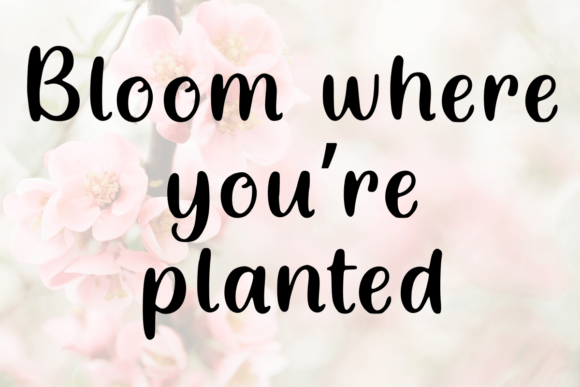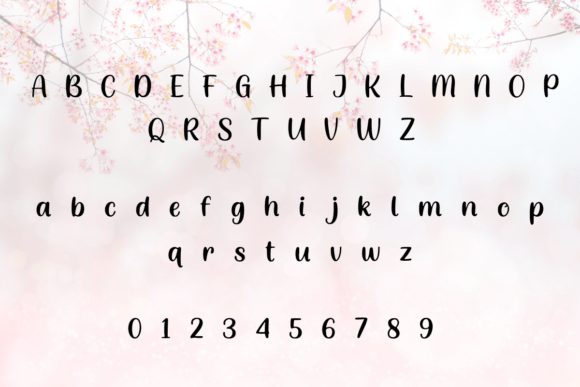
Introducing Cloudberry Script Font: Elevate Your Design with Elegance
Are you on the hunt for a font that embodies the perfect blend of modern sophistication and classic elegance? Look no further than Cloudberry Script Font. This beautiful, soft calligraphy font is designed to bring a touch of warmth and organic charm to your designs, making it an ideal choice for a wide range of creative projects.
What Makes Cloudberry Script Font Stand Out?
Cloudberry Script Font is characterized by its elegant swashes, bouncy strokes, and a warm, organic feel that sets it apart from more traditional calligraphy fonts. Its modern approach to calligraphy makes it incredibly versatile, suitable for projects that require a feminine touch. Whether you’re working on branding, packaging, quotes, or wedding designs, Cloudberry Script Font is sure to elevate your work with its unique charm.
Perfect for Feminine Branding and Beyond
For designers and crafters looking to infuse their projects with a feminine flair, Cloudberry Script Font is an excellent choice. Its soft, flowing lines and elegant swashes evoke a sense of grace and sophistication, making it perfect for:
- Feminine branding: Give your brand a touch of elegance and sophistication with a font that speaks to a feminine audience.
- Packaging: Elevate your product packaging with a font that adds a warm, organic feel to your designs.
- Quotes and typography: Add a personal touch to your quotes and typography projects with a font that exudes warmth and elegance.
- Weddings and events: Make your wedding or event designs truly special with a font that captures the essence of romance and sophistication.
Why Choose Cloudberry Script Font?
In a world where design trends come and go, Cloudberry Script Font stands out for its timeless elegance and versatility. Here are just a few reasons why designers and crafters are falling in love with this beautiful font:
- Unique and distinctive: Cloudberry Script Font offers a fresh take on traditional calligraphy, making your designs instantly recognizable.
- Elegant and sophisticated: Add a touch of luxury and sophistication to your projects with a font that exudes elegance.
- Support for creative freedom: With its range of swashes and bouncy strokes, Cloudberry Script Font gives you the creative freedom to bring your vision to life.
Cloudberry Script Font is more than just a font – it’s a design solution that brings a touch of elegance, sophistication, and warmth to your projects. Whether you’re a designer, crafter, or DIY enthusiast, this beautiful calligraphy font is sure to become a staple in your creative toolkit. With its compatibility across a range of design tools and software, there’s never been a better time to explore the creative possibilities of Cloudberry Script Font.